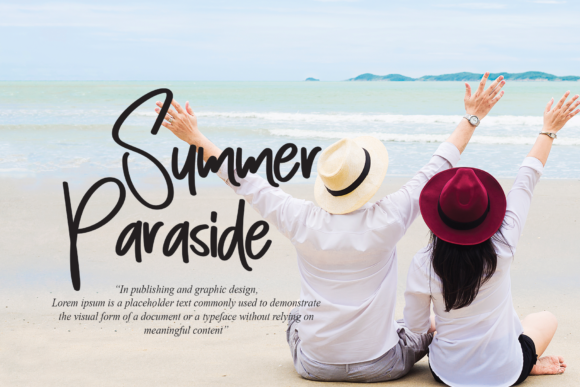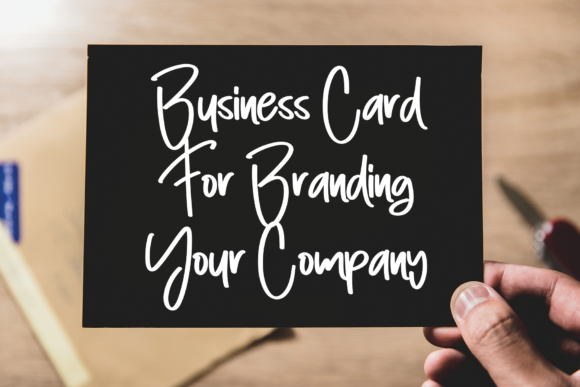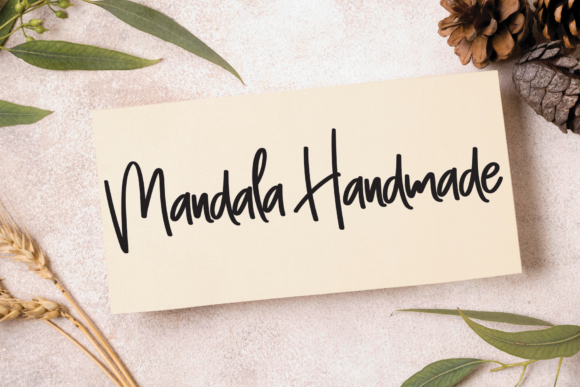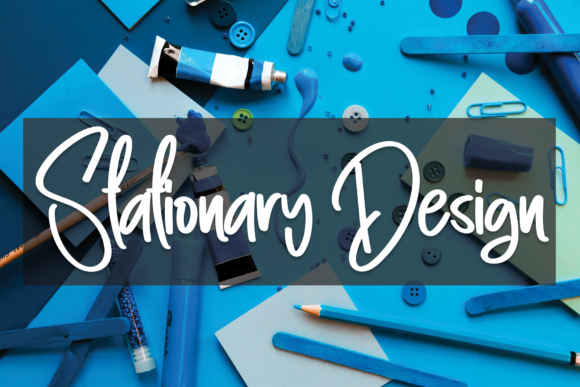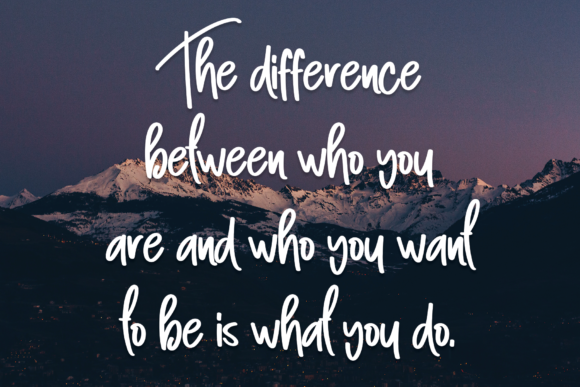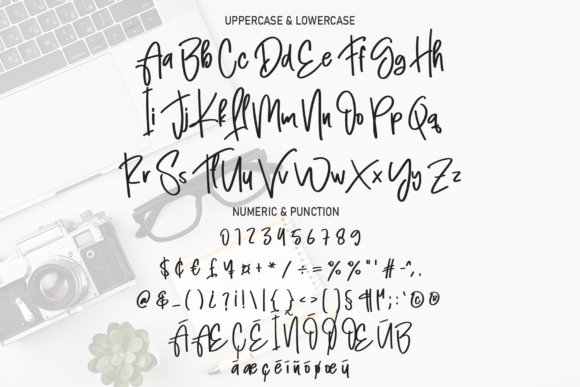
Introduction to Hightschool Font
Remember that moment when you’re brainstorming ideas for a new project, and suddenly, the perfect font pops into your head? That’s exactly what happens when you stumble upon the Hightschool Font. This classic handwritten script is a treasure trove of creative possibilities, and we’re excited to dive into its world.
As a valuable addition to any design resource, Hightschool Font is perfect for logotype, headline font, and even corporate identity projects. Its free download and transparent background make it a breeze to incorporate into your high-quality design projects. Whether you’re working on a poster, music album, or YouTube video, this font is sure to elevate your creative project to the next level.
- Unique, modern design with a touch of sophistication, making it perfect for various creative projects
Honest Review: Hightschool Font
What I loved most about Hightschool Font is its versatility. It comes with a transparent background, making it easy to use in any design resource. The high-quality design is perfect for any creative project, from logos to typography-heavy graphics.
- ⚠️ Limited character set, which might not be suitable for longer text
- ⚠️ Not ideal for use in small font sizes due to the bold design
Overall, I’m really impressed with the Hightschool Font and would highly recommend it to any designer looking for a high-quality design resource for their creative projects.
Tips for Getting the Most Out of Hightschool Font
Use the Hightschool Font in conjunction with high-quality images to create visually appealing designs. Experiment with different font sizes and styles to add depth and interest to your creative project.
The Hightschool Font is ideal for a variety of creative projects, including brochures, flyers, and social media graphics. Its high-quality design and transparent background make it a versatile resource for designers and non-designers alike.
Compared to Hightschool Font, Great Vibes Font has a more refined and elegant look, making it suitable for high-end branding and design projects.
Compared to Hightschool Font, Alex Brush Font has a more playful and artistic feel, making it suitable for projects that require a unique and eye-catching look.